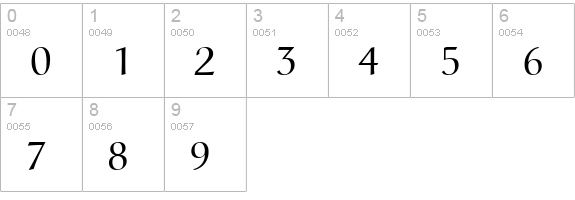
Christiana Regular is the standard, neutral variant in the Christiana typeface family \xE2\x80\x94 well suited to general body text, paragraphs, and standard typographic work.
Christiana Regular font is a classic and elegant typeface that combines modern design with a touch of sophistication. Its refined serifs and graceful curves make it perfect for a wide range of design projects, from branding to editorial. The versatility of Christiana Regular allows it to be used for both headlines and body text, ensuring a cohesive and polished look throughout your work. What sets Christiana Regular apart is not only its timeless design but also its accessibility. This exquisite font is freely available to download at FontsMarket.com, making it easy for designers and creatives to incorporate it into their projects without any restrictions. Whether you're working on a website, print materials, or social media graphics, Christiana Regular is a versatile and dependable choice that will elevate your designs to the next level. Download it today and add a touch of sophistication to your typography.